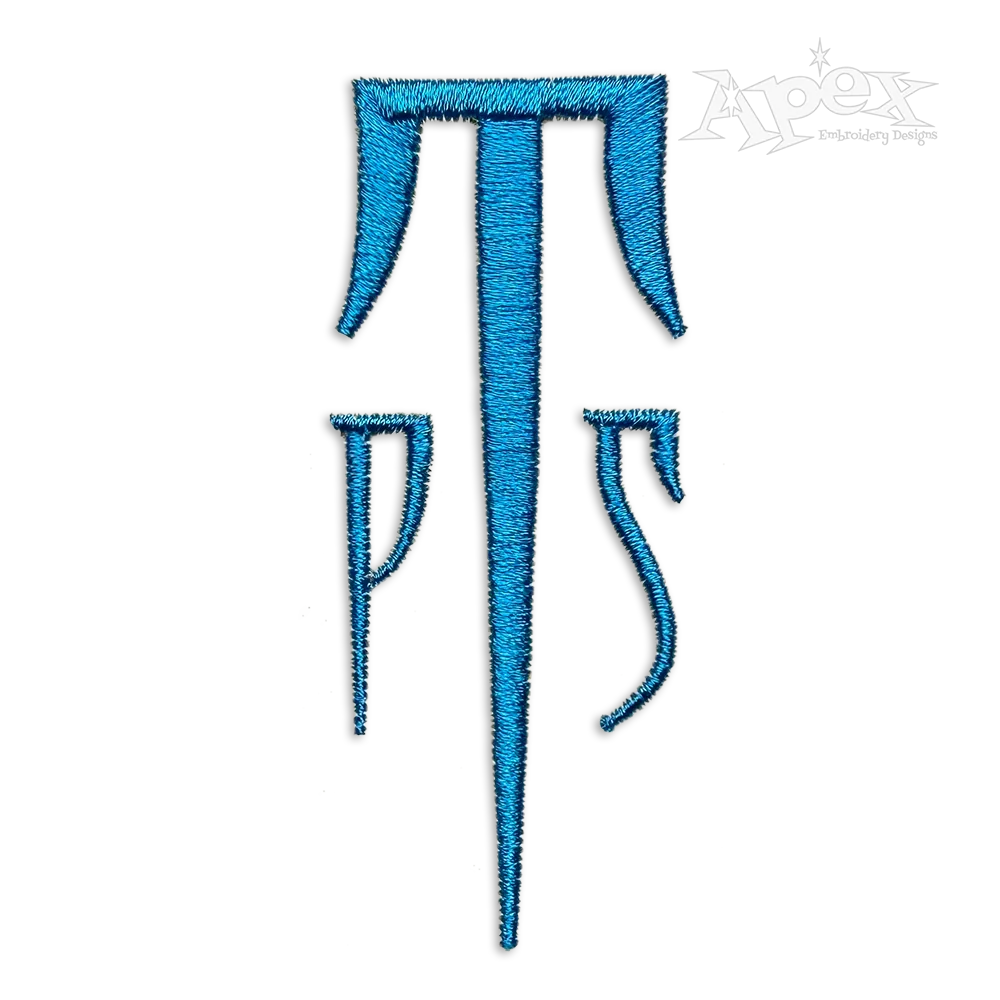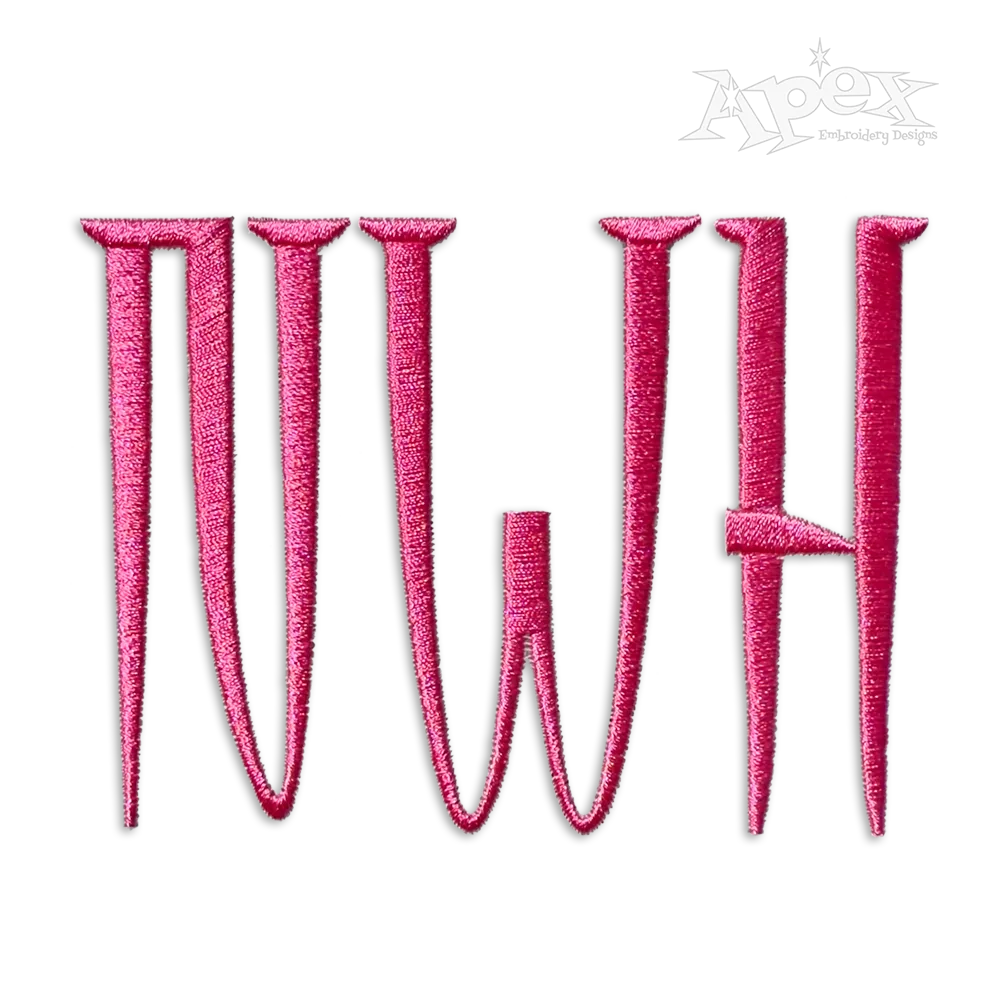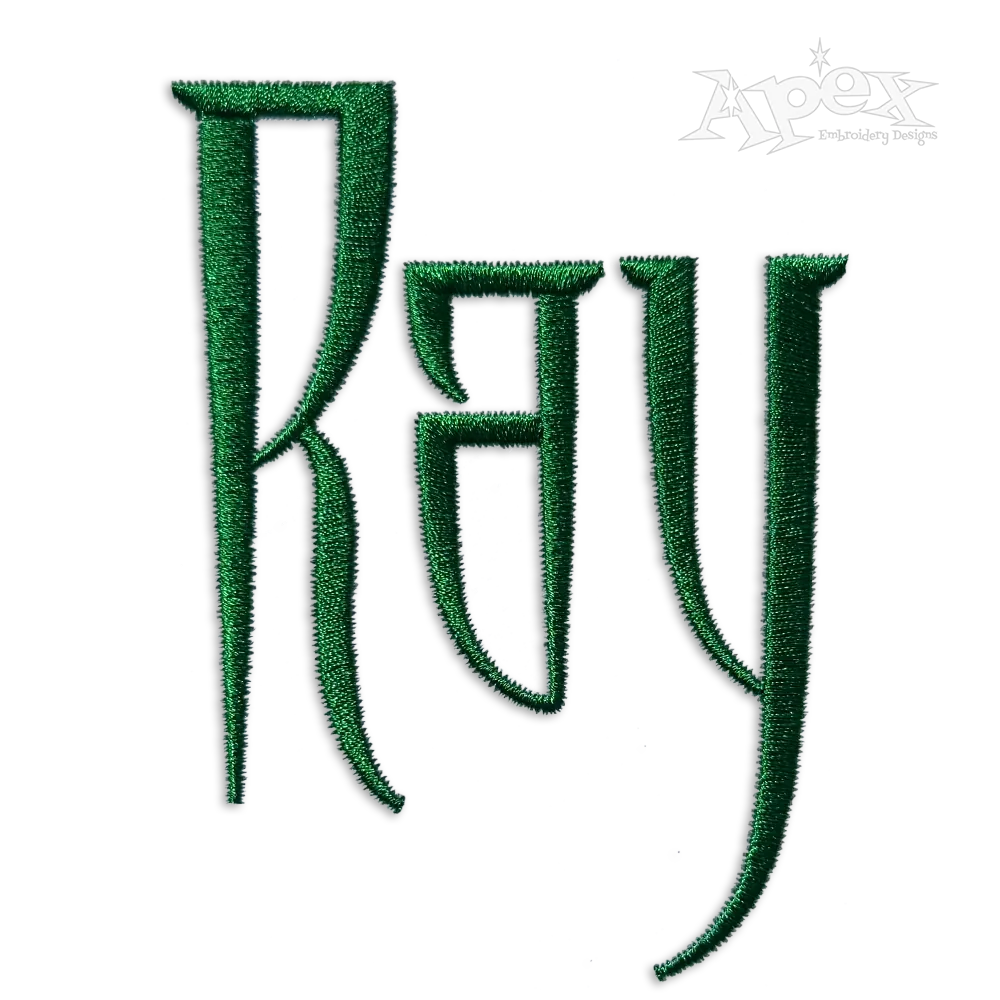
Dagger Embroidery Font
Born from a fascination with antique armory and Victorian gothic literature, the Dagger Embroidery Font translates the sharp, dramatic silhouette of forged cold steel into mesmerizing threadwork. Each glyph is sculpted with razor-sharp terminals, tapered crossbars, and ominous curves that capture the spirit of haunted romance and macabre elegance. Far beyond an ordinary novelty alphabet, this digitized lettering style delivers a commanding presence on fabric, where lustrous embroidery thread catches the light like the gleam of a polished blade.
Digitized with meticulous stitch balancing, the Dagger font suite provides full creative control across projects both delicate and bold. The collection includes 52 total glyphs, encompassing complete sets of uppercase and lowercase letters carefully scaled across three versatile heights:
- 1.0 inch – Ideal for subtle monogramming, delicate collar details, and understated gothic accents.
- 2.0 inches – Perfect for striking pouch accents, custom apparel lettering, and seasonal table settings.
- 3.0 inches – Designed for high-impact back jackets, wall art, statement banners, and luxury trick-or-treat bags.
Project Ideas for Dagger Embroidery Font
- Haunted Dining & Tablescapes: Stitch initials in deep charcoal or blood-crimson thread onto charcoal linen cocktail napkins, velvet table runners, and bespoke dinner mats for moody dinner parties or Halloween feasts.
- Gothic Bridal & Alternative Wear: Personalize the back collar of leather moto jackets, satin boudoir robes, or velvet capes with a dramatic custom monogram.
- Heirloom Halloween Keepsakes: Upgrade heavy-weight canvas treat bags, seasonal pillows, or quilted wall hangings with dark academia charm that endures year after year.
- Bespoke Streetwear: Embroider haunting mottos, band nicknames, or initials across heavyweight French terry hoodies and raw denim pockets.
- Wicked Barware & Gift Sets: Monogram felt coasters, wine totes, or decanter aprons for personalized gifting with a sophisticated edge.
The aggressive, stylized geometry of the Dagger font creates immediate visual drama, making strategic positioning essential:
- Corner Diagonal Placements: Angle a single uppercase initial across the lower point of dinner napkins or silk pocket squares to showcase the pointed terminals.
- Center Chest & Yoke Lines: Align text across the center chest of sweatshirts or between the shoulder blades of outerwear for an authentic rock-and-roll or dark academia aesthetic.
- Sleeve Cuffs & Forearms: Run a lowercase name or word along the forearm of a structured sleeve, letting the elongated letter stems echo the line of the arm.
- Gothic Lapel & Collar Tips: Scale down to the 1-inch size for balanced placement directly on pointed shirt collars or outerwear lapels.
Dagger Embroidery Font Craft & Letterform Details
Digitizing a font with extreme points requires master-level compensation to avoid puckering while preserving clean silhouettes. Every serif and spur in the Dagger font is drafted with adaptive stitch angles, ensuring that thread directions guide the eye seamlessly around each bend rather than creating bulky thread pile-ups. Underlay stitching is strategically layered to anchor the foundational fabric before sweeping top satins seal the edges with clean crispness.
The lowercase characters harmoniously complement the dramatic capitals, utilizing elongated ascenders and dagger-like descenders that lend rhythm to stitched words. Whether rendered in luminous metallic silver, midnight black, or burnished antique gold, each letter preserves its sharp visual identity, turning every embroidered line into a work of wearable dark art.